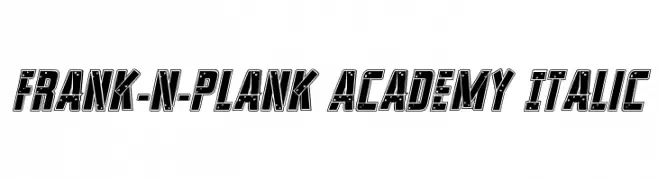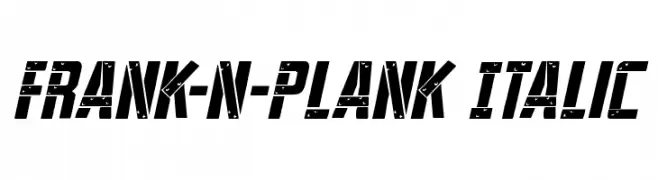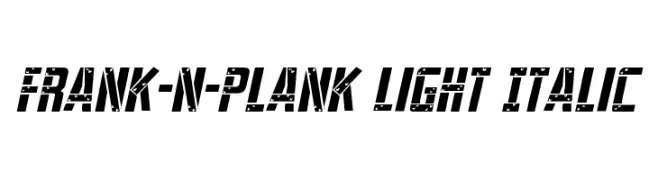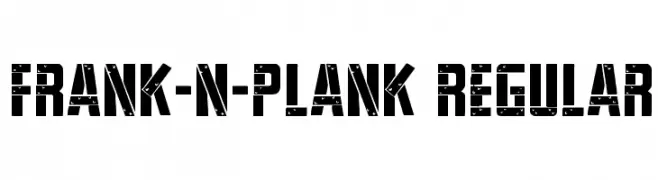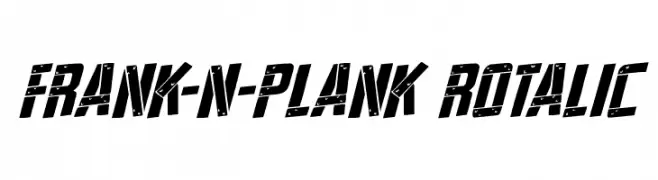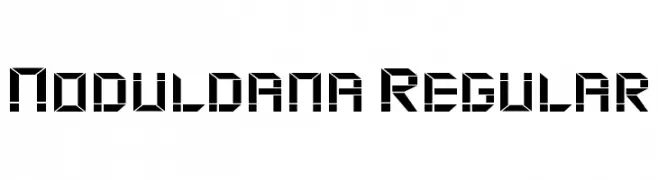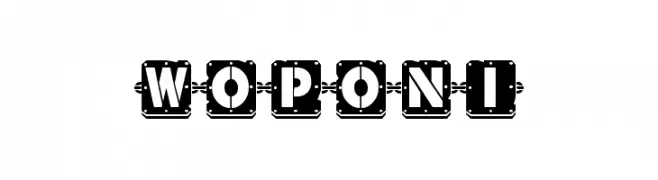
A bold, industrial font with characters enclosed in chain-linked frames.
A bold, industrial italic font with geometric, rivet-like details.
A bold, industrial-themed font with italicized, rivet-detailed characters.
A bold, condensed, and italic font with industrial decorative elements.
A bold, industrial italic font with plank-like characters and rivet details.
A bold, industrial font with embedded bolt patterns, ideal for impactful designs.
A bold, industrial stencil font with geometric shapes and decorative cutouts.
A bold, stencil-like font with an industrial and dynamic italic style.
A bold, geometric font with a futuristic, modular design.